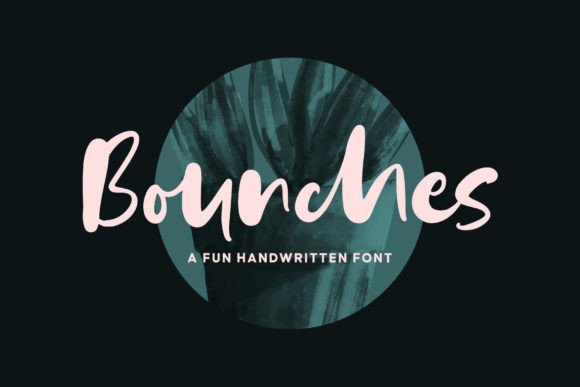
The Bounches Font: A Fun and Dynamic Handwritten Delight
The Bounches font is a fun and dynamic handwritten font that comes in two styles: regular and slant. Its versatility makes it perfect for a wide range of design applications, from branding and advertising to headlines and packaging design.
- ✨ The Bounches font has a unique, energetic feel that’s sure to grab attention.
- ✅ It’s incredibly versatile, with two styles to choose from: regular and slant.
- 💡 The font is perfect for creating eye-catching headlines, titles, and captions.
- 🎉 It’s also great for branding and advertising, adding a playful touch to any design.
While the Bounches font is amazing, there are a few things to keep in mind:
- ⚠️ Some of the characters may appear a bit cramped, so be sure to adjust the kerning as needed.
- 🤔 The font may not be the best choice for body text, as it’s primarily designed for headlines and titles.
The Designer Inspiration Behind Bounches
The Bounches font was designed with the intention of creating a fun and dynamic handwritten font that would add a playful touch to any design. The designer wanted to create a font that would be perfect for headlines, titles, and captions, while also being versatile enough to use in a variety of design applications.
Q: What is the Bounches font best used for?
A: The Bounches font is best used for headlines, titles, captions, and other display text. It’s perfect for branding, advertising, packaging design, and more.
Q: Can I use the Bounches font for body text?
A: While the Bounches font can be used for body text, it’s primarily designed for headlines and titles. You may find that it’s a bit too ornate for long blocks of text.
Q: Is the Bounches font available in different languages?
A: The Bounches font may not be available in all languages, but it does include a range of characters and glyphs to support multiple languages.